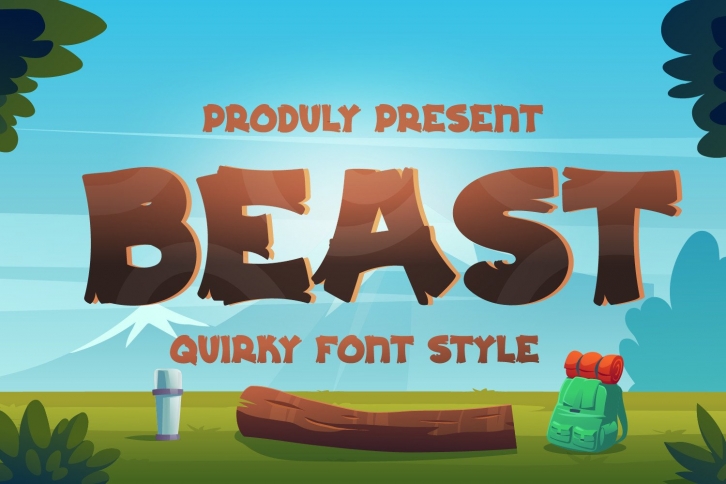
Beast is a chic and bold display font. It embodies playfulness and authenticity and is the perfect choice for any children activity or school project.